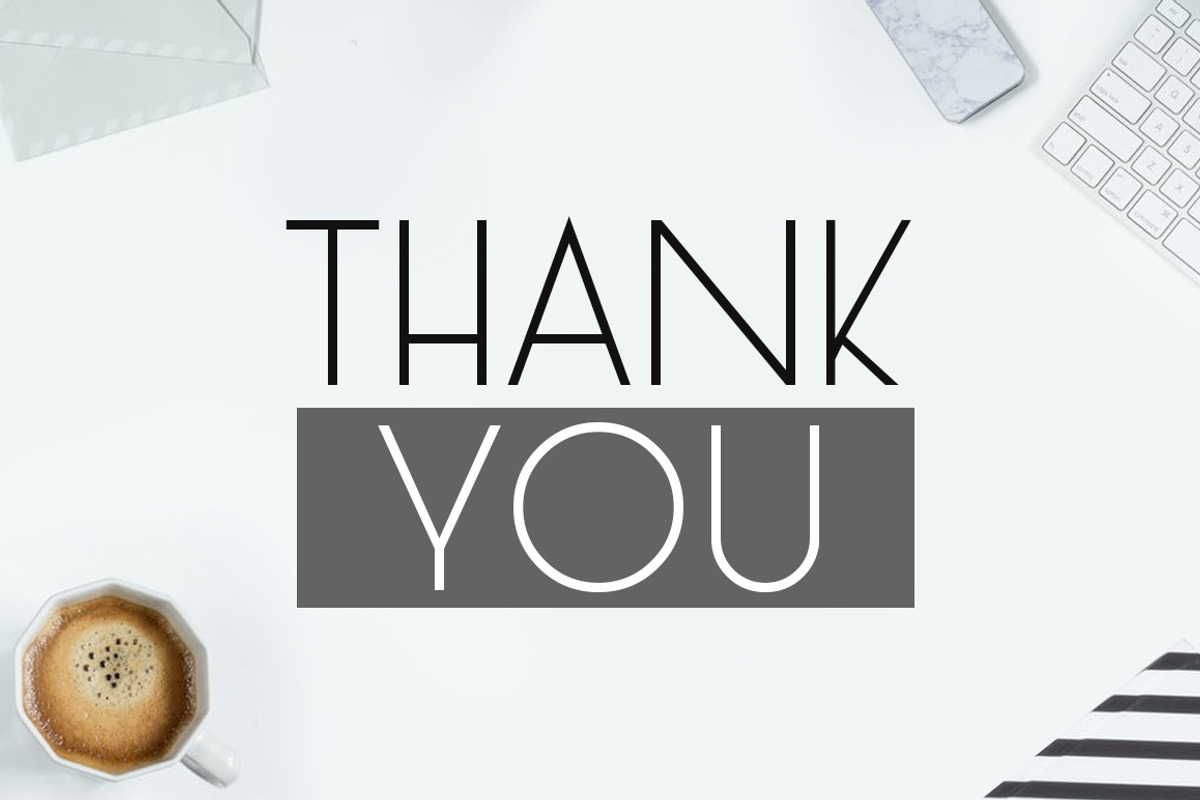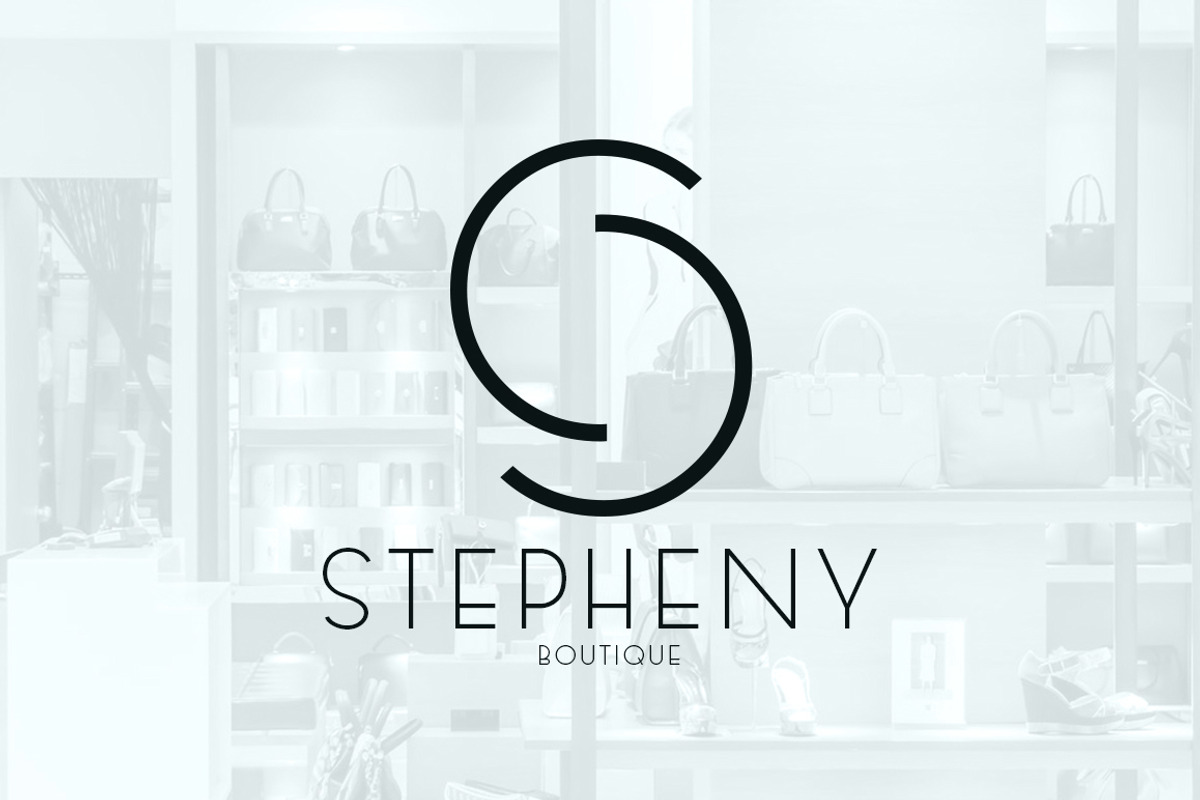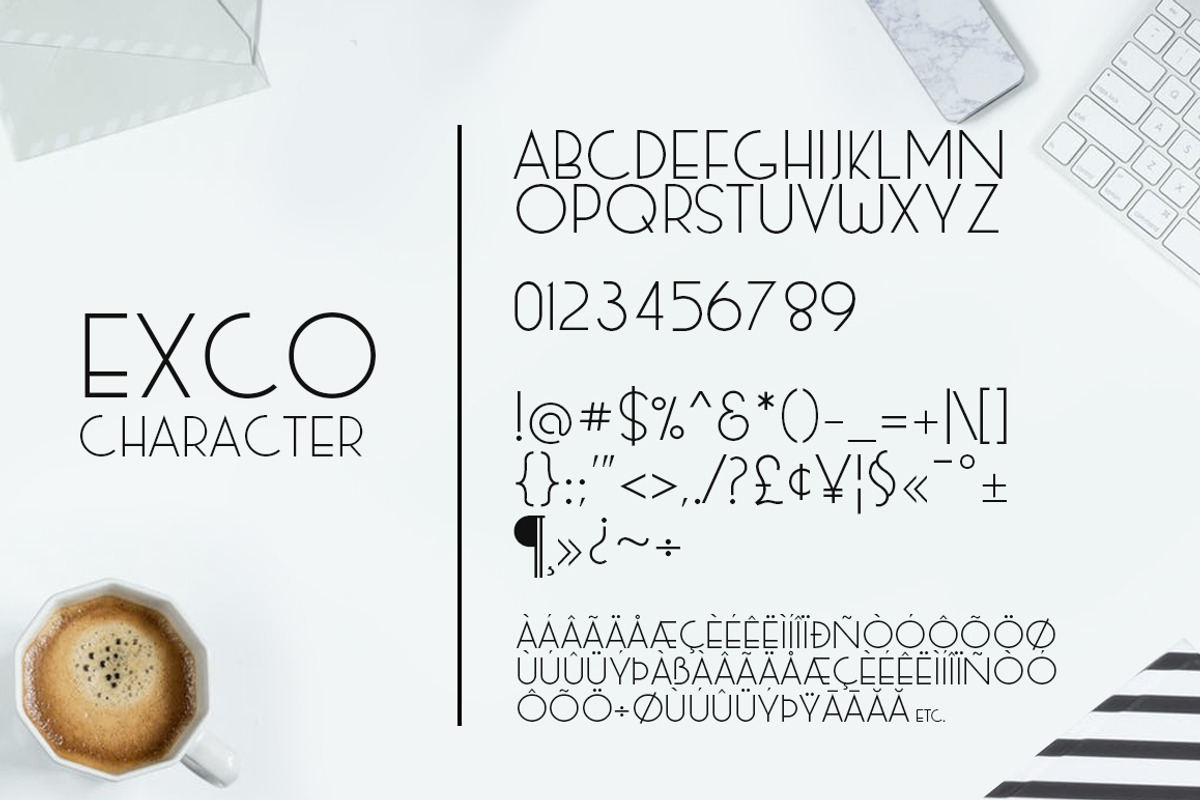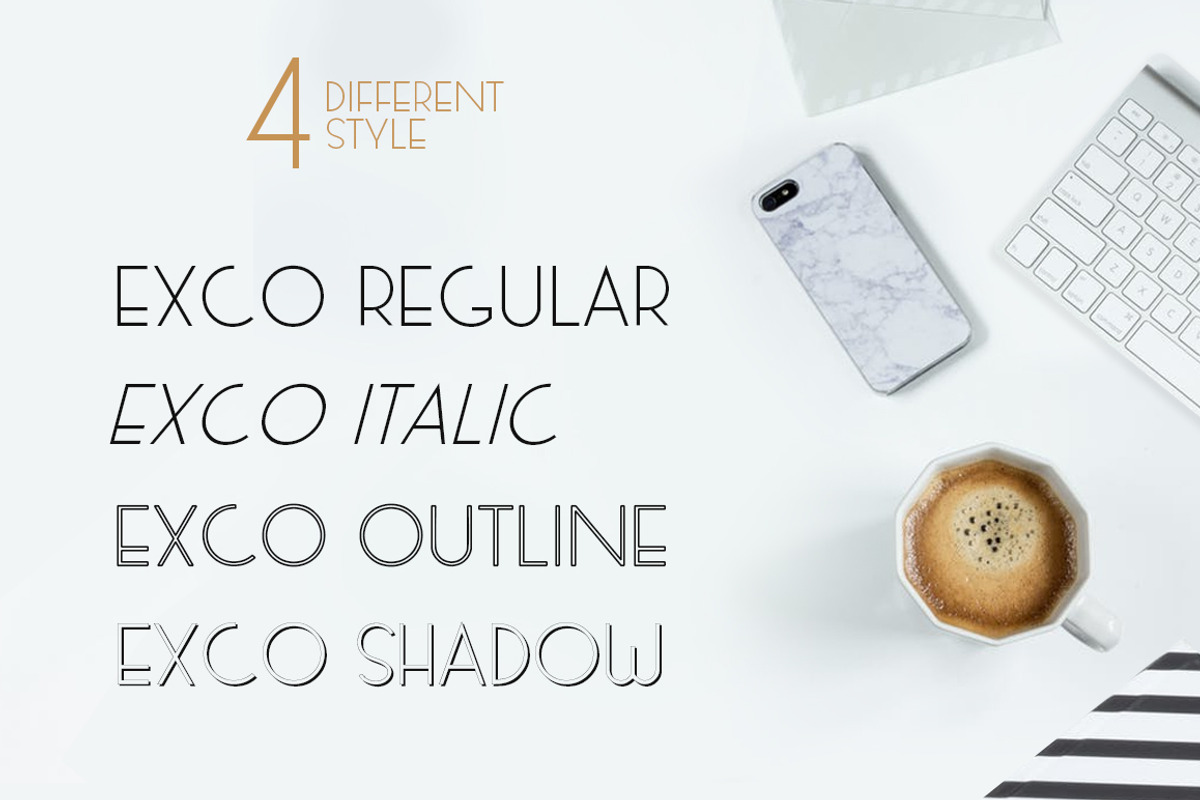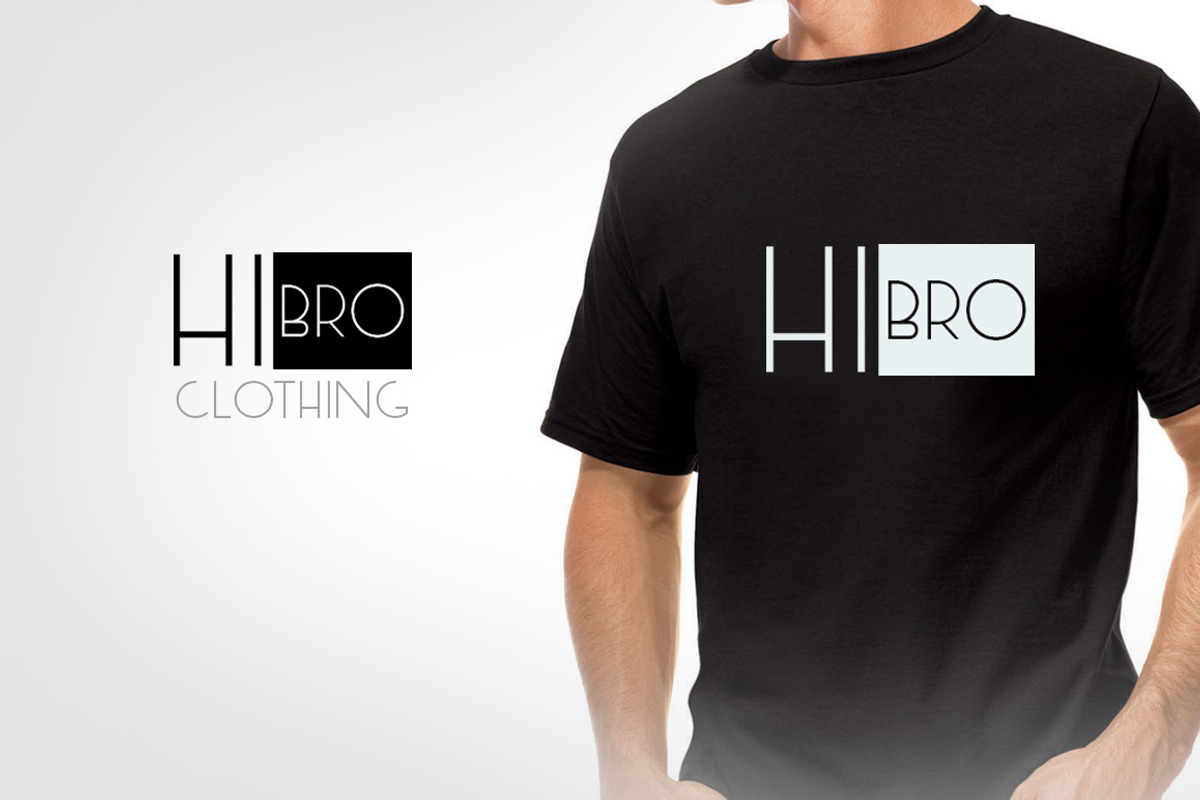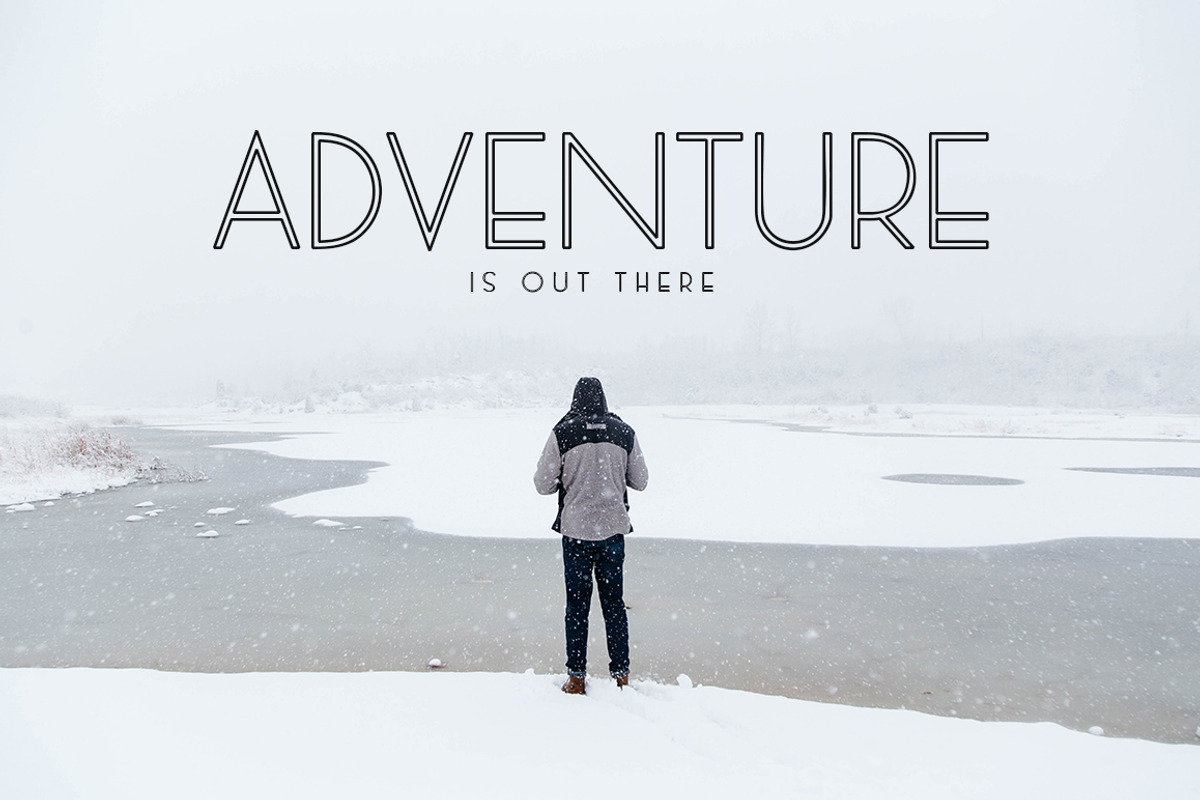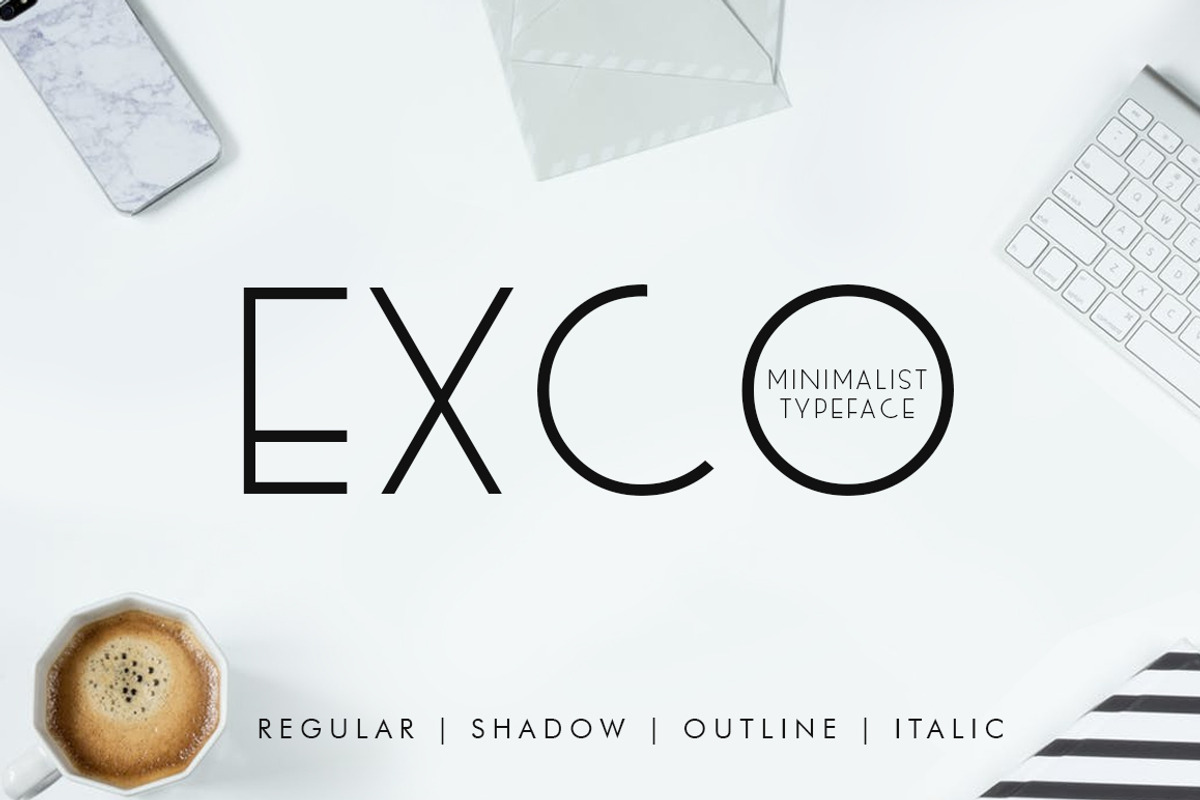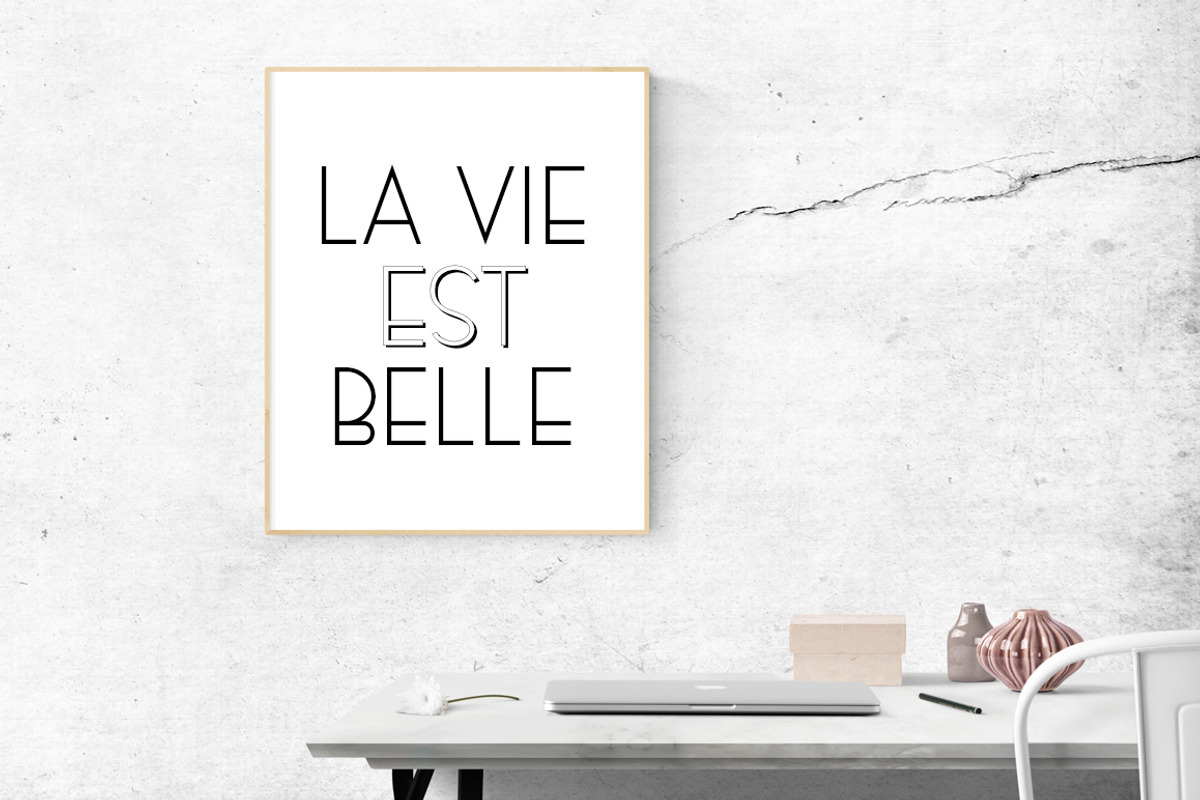
Exco (4 font)
Exco a minimalis typeface and awesome character with 4 different style, regular, italic, outline & shadow. Exco it’s perfect for namecard, poster, logo, magazine, cover, banner, tshirt and headers, or even large-scale artwork.